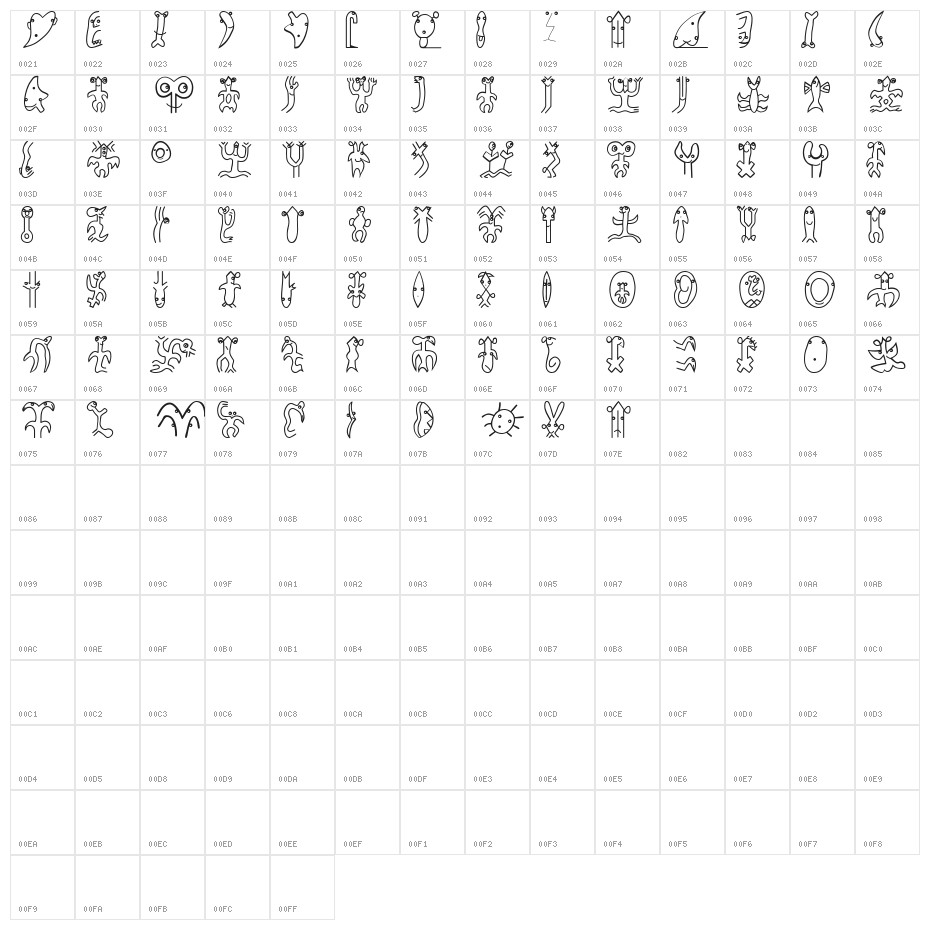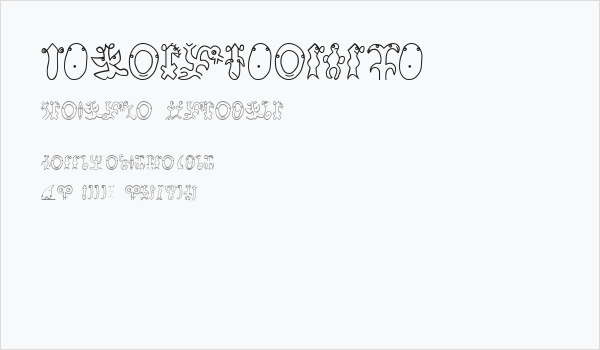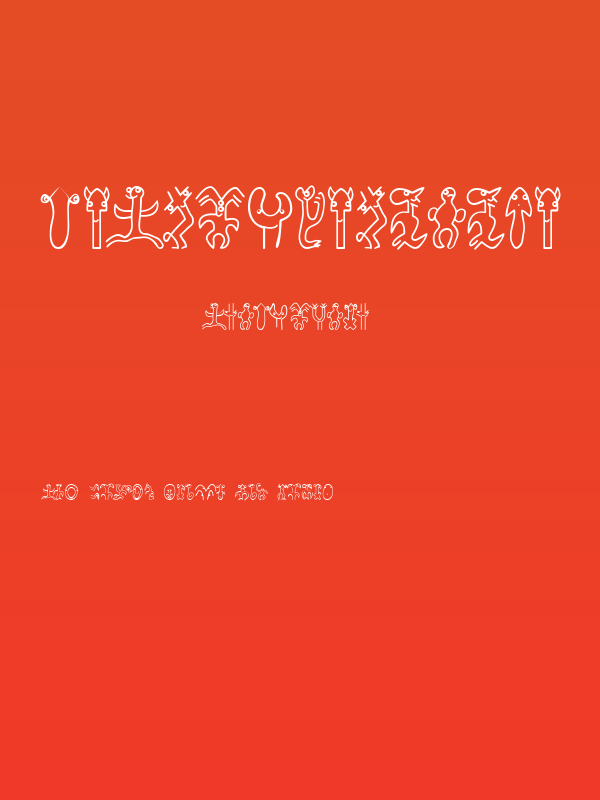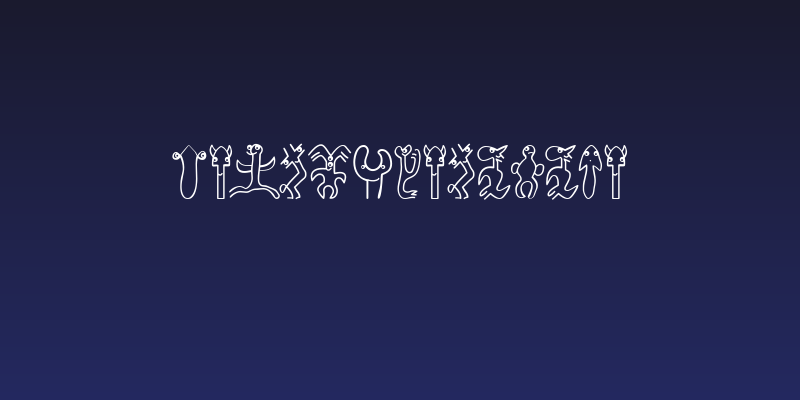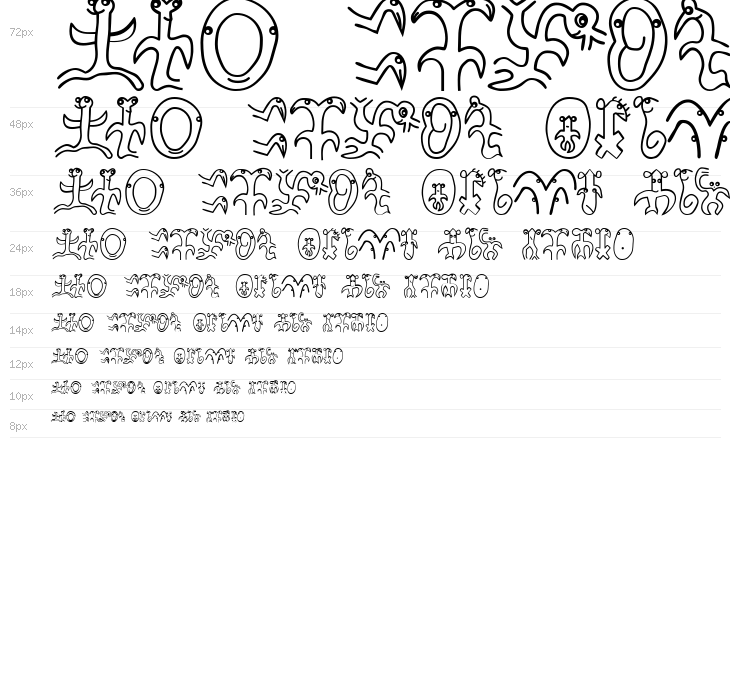
OsterinselPlus Font
OsterinselPlus Description
This font features a highly decorative and whimsical style, characterized by intricate and abstract shapes that resemble mythical creatures or ancient symbols. Each character is uniquely crafted with elaborate details, creating a sense of mystery and playfulness. The design incorporates a variety of curves, loops, and unexpected angles, giving it a dynamic and lively appearance. The font's artistic nature makes it stand out, offering a unique visual experience that is both captivating and unconventional. Its distinctiveness lies in the imaginative representation of each letter, which seems to tell a story or convey a hidden meaning. The overall aesthetic is reminiscent of ancient hieroglyphs or tribal art, making it suitable for projects that aim to evoke a sense of history, culture, or fantasy.
| Use Case | Logos, Posters, Artistic projects |
| Proposed Projects | Ideal for fantasy-themed designs, cultural exhibitions, artistic posters, or unique branding projects. |